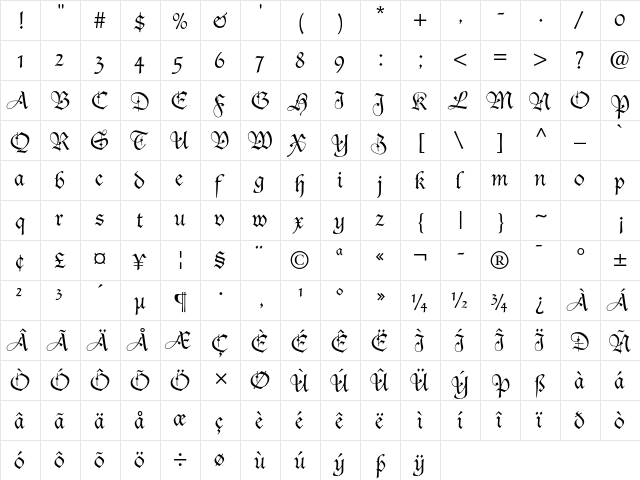
Duc De Berry LT Std Roman
Roman ·  Gottfried Pott ·
Design Context for Duc De Berry LT Std Typeface
Duc De Berry LT Std is a composed and adaptable typeface that performs quietly and consistently across a wide range of design contexts. The delicate stroke weight brings airiness and refinement to layouts.